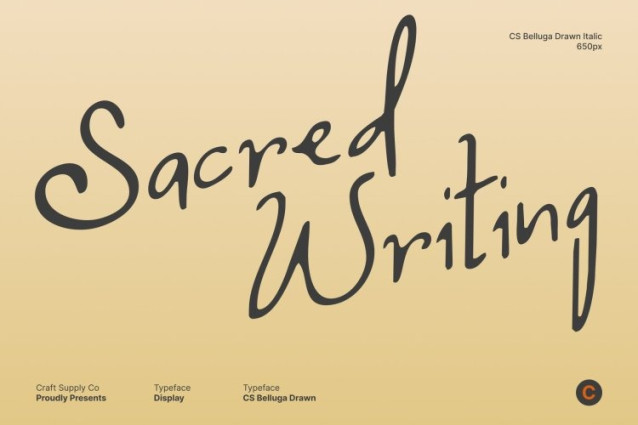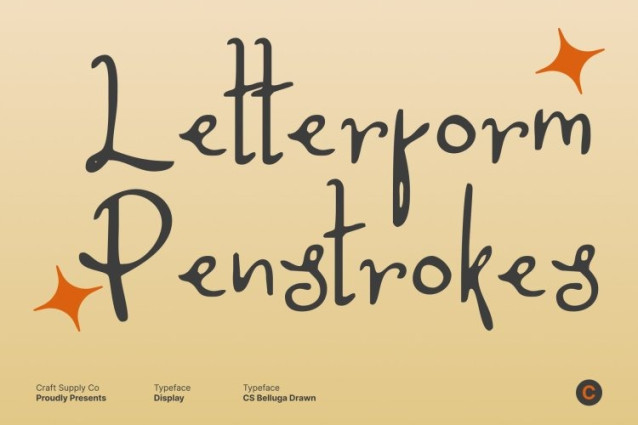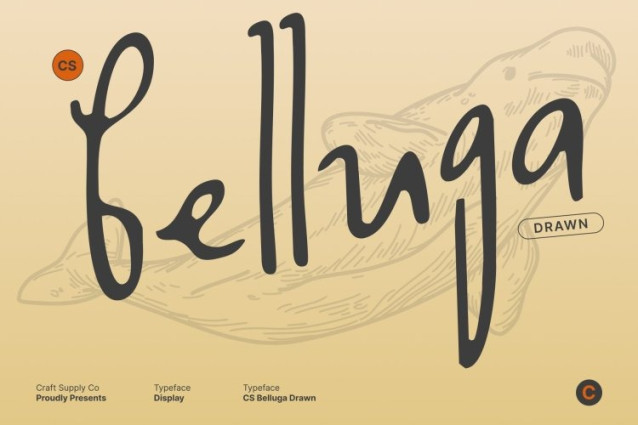
CS Belluga Drawn Font This is a charming handwritten whimsy font that dances with playful curves and graceful motion. Each letter flows naturally with a sense of joy and spontaneity, creating a lively rhythm that feels expressive and full of personality. Designed to capture creativity and romance, this font brings warmth, charm, and a soft touch of fantasy to every design.
Playful Curves for Delightful Expression
Every stroke is thoughtfully crafted to convey movement and liveliness. The flowing lines and gentle swirls form a handwritten rhythm that feels personal and inviting. Its playful curves make the font ideal for expressing happiness, affection, and celebration, while still maintaining an elegant and visually pleasing balance.
Whimsical Character for Creative Designs
What sets this font apart is its imaginative and whimsical character. Organic movement blends seamlessly with a well-balanced structure, resulting in a typeface that feels fun yet refined. It works beautifully in love-themed designs, wedding invitations, beauty posters, and creative projects that seek a lighthearted and artistic mood.
Perfect for Romantic and Cheerful Creations
From wedding stationery and party invitations to quotes and decorative branding, this font adds joy and artistry to every layout. Its combination of beauty, playfulness, and drawn texture makes it a versatile choice for designers who want their typography to feel personal, lively, and full of delightful expression.